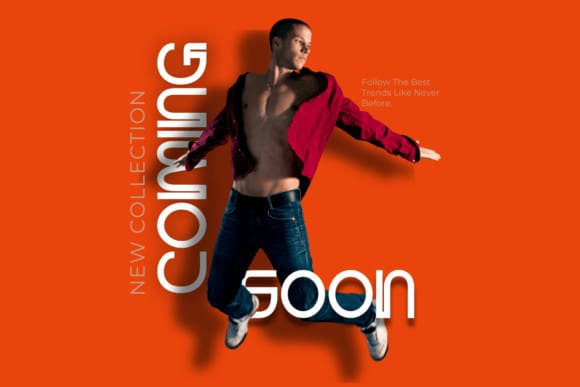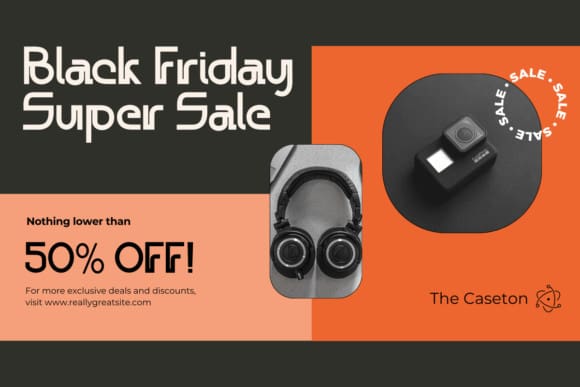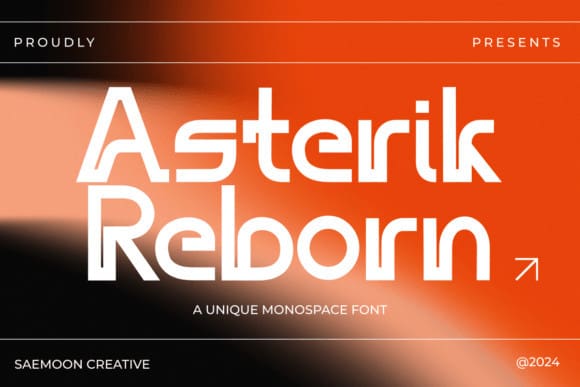
Asterik Reborn Font
Asterik Reborn Font, presented by Saemoon Creative, an unparalleled monospace font infused with a modern appeal and sporty attributes, crafting a distinctive and vibrant persona. Each font detail is attentively fashioned, showcasing crisp outlines and pointed angles that embody speed and precision. With balanced features and consistent spacing, the readability of Asterik Reborn stands unchallenged, ideally suited for digital applications, and contemporary graphic designs. Its high-tech, futuristic aesthetics layered with precise geometric details are further complemented by sporty elements instilling each character with zest and lively flair.
Asterik Reborn serves as the go-to option for those in pursuit of a daring and inventive outlook without jeopardizing readability. Truly versatile, this font enhances brand identity, exudes modernity, and signals energy. It aligns perfectly with brands striving for a progress-oriented, dynamic impression. It offers unmistakable characters, proven to be effective across a range of branding outlets, from logos and promotional material to digital visual identities.